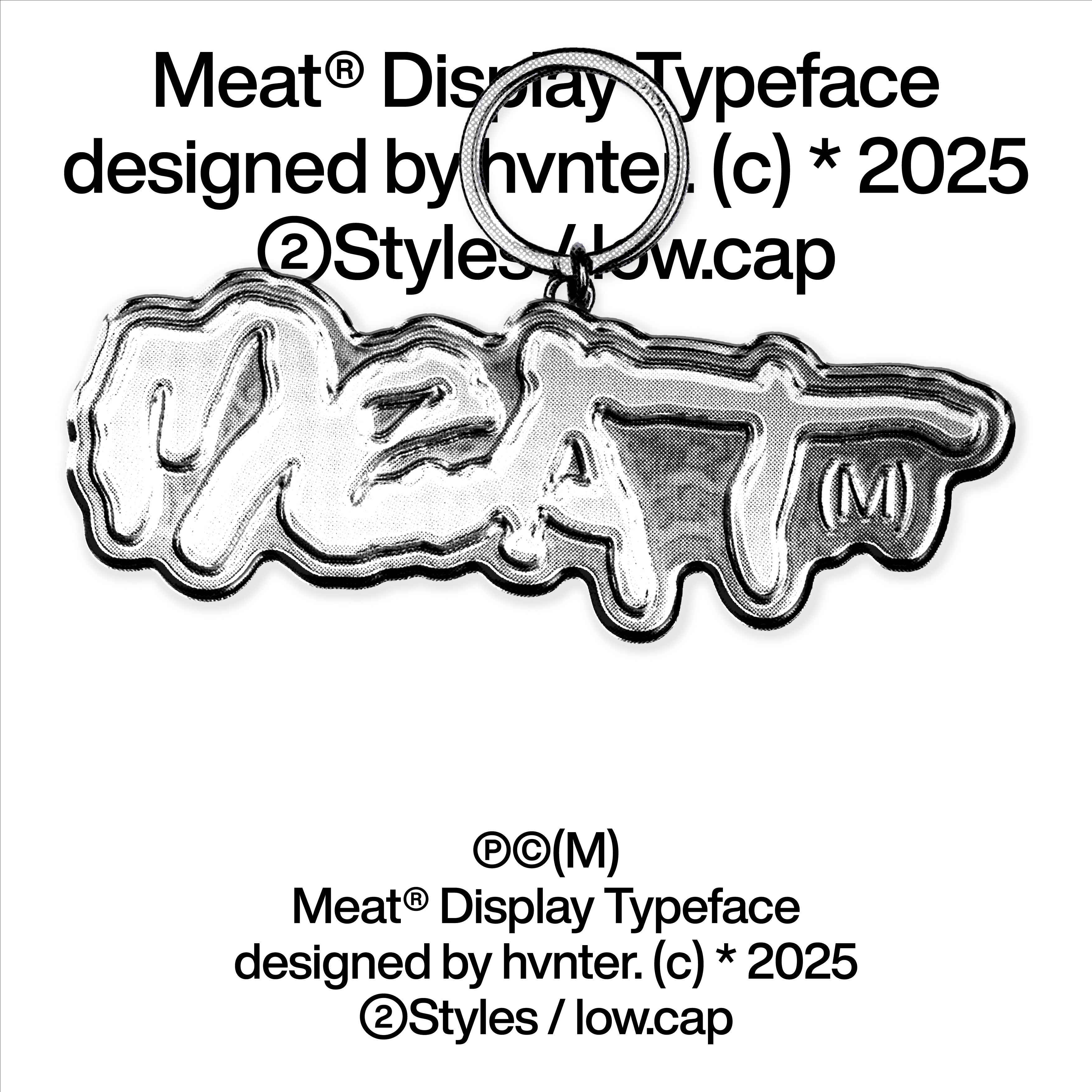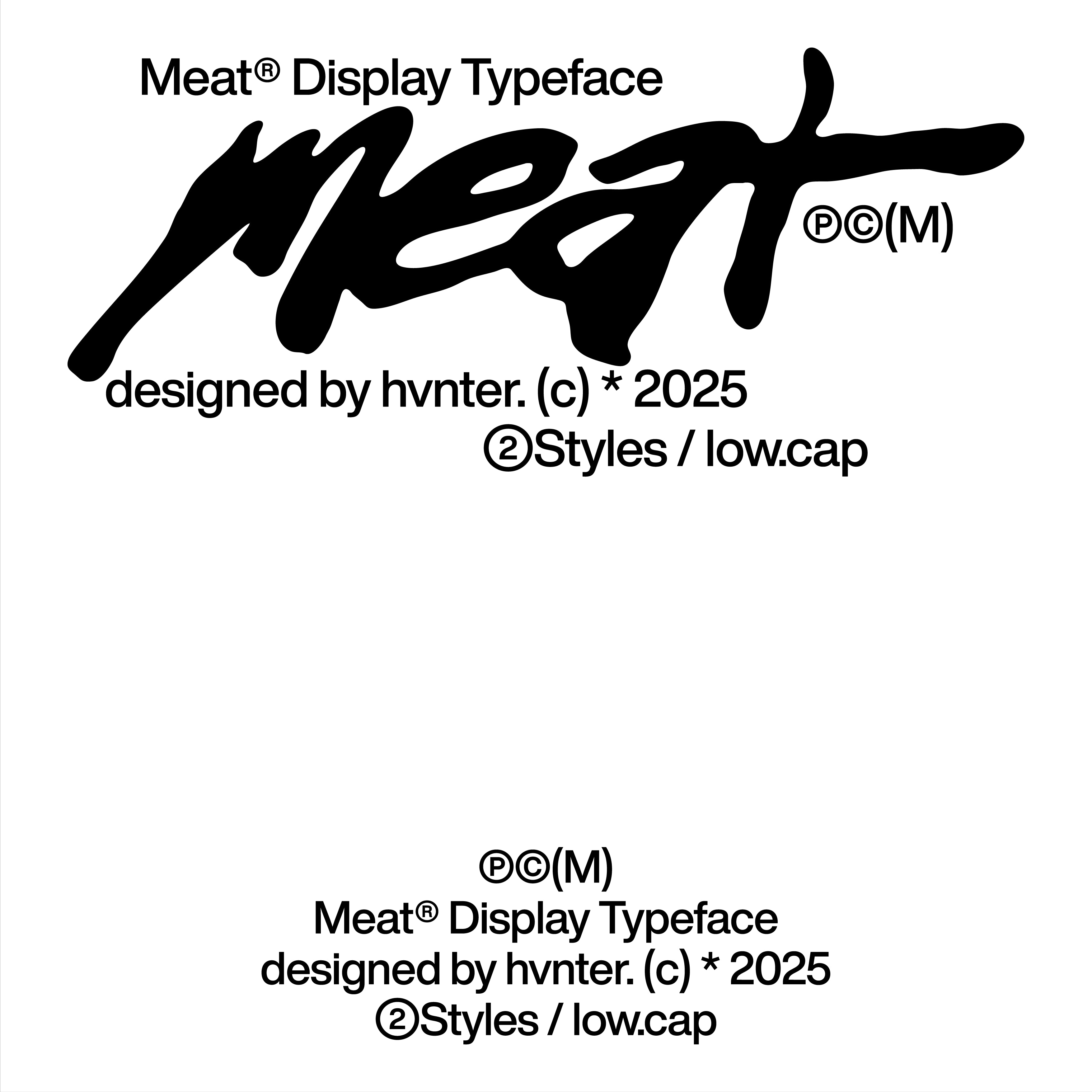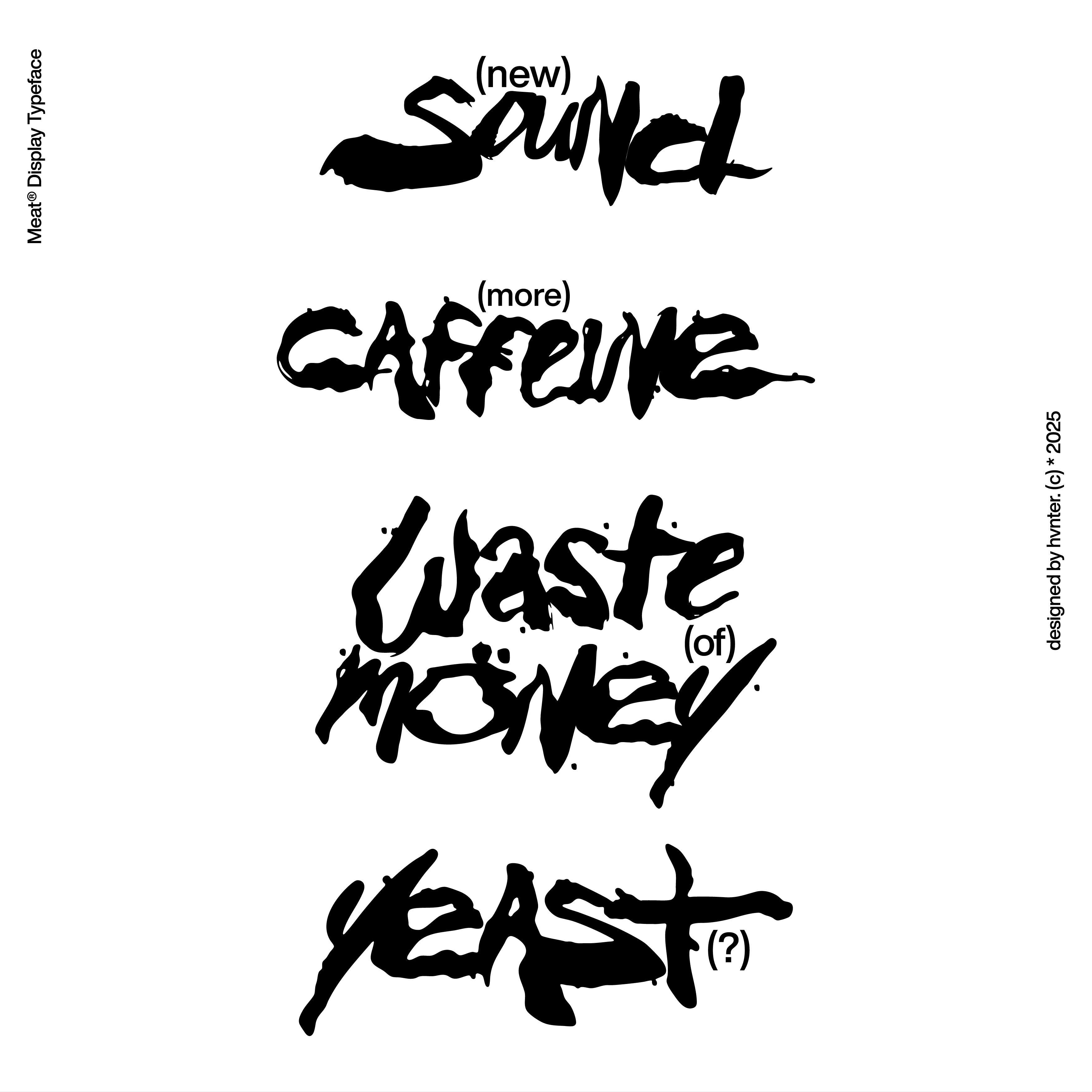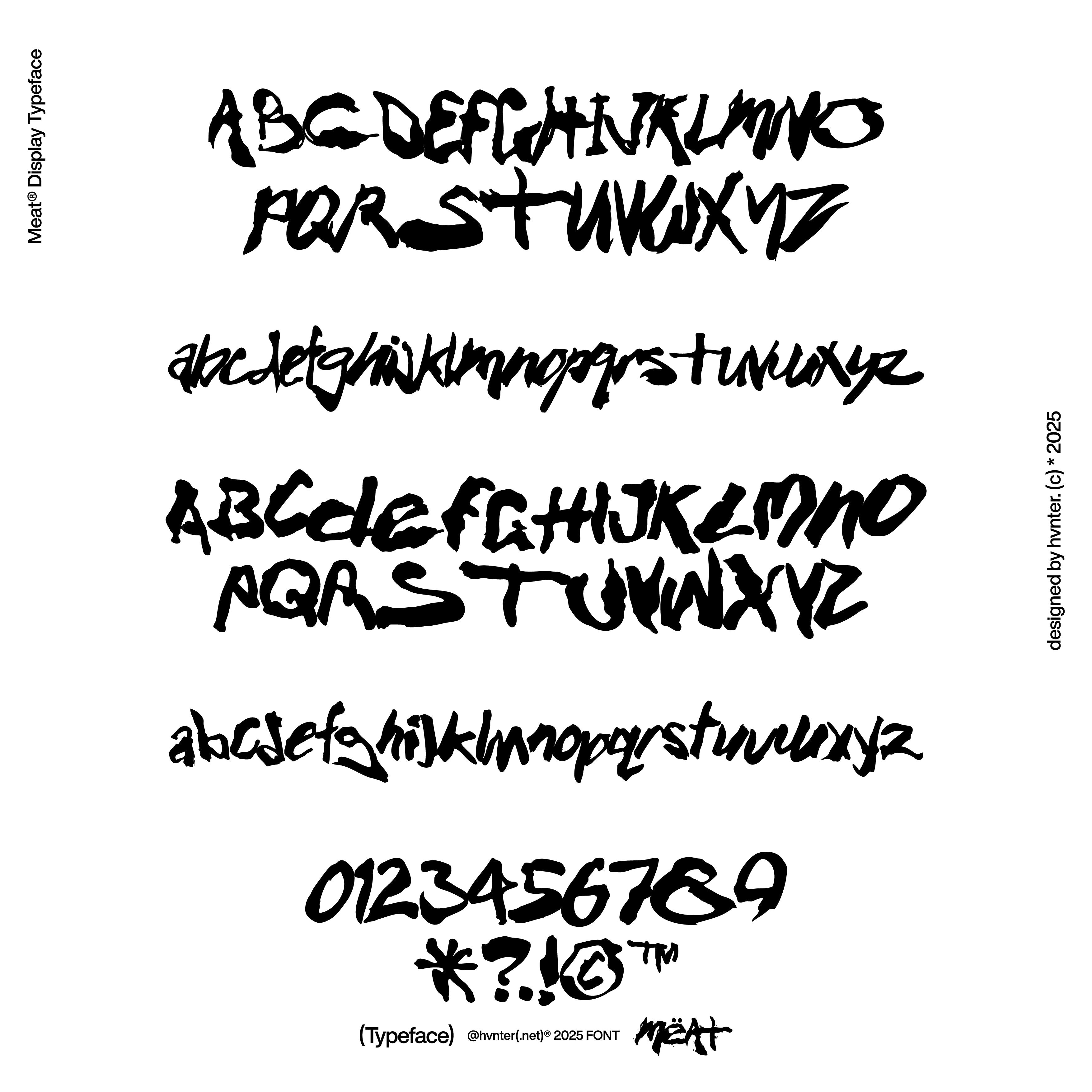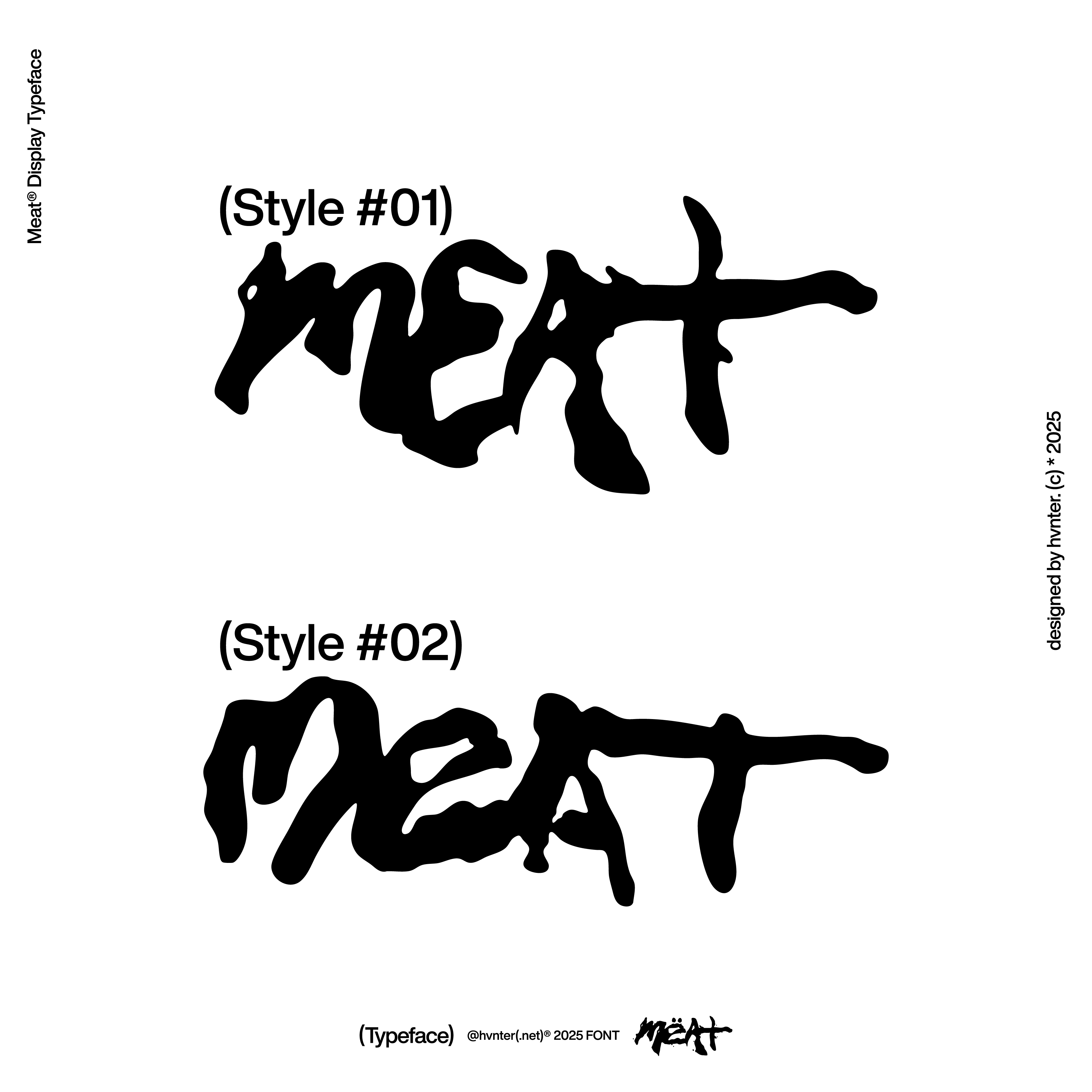
Meat Typeface
Meat Typeface is a hand-drawn gritty typeface that includes two styles featuring A-Z, a-z, 0-9, and basic symbols. It comes with a standard commercial license.